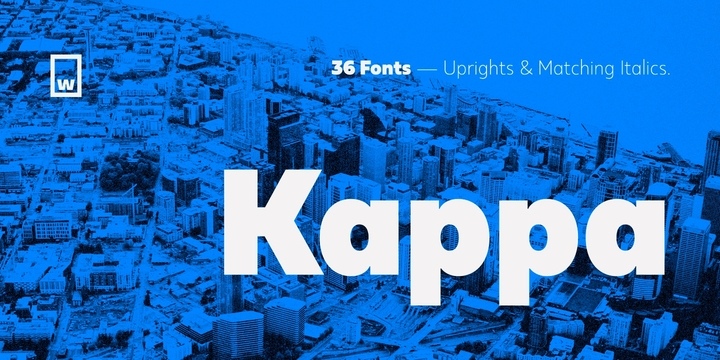
Kappa Font
Kappa Font is perfect for Greek cultural organizations, Mediterranean restaurant branding, classical education materials, university Greek studies programs, cultural heritage festivals, and Hellenic community centers. This distinguished typeface excels in Greek Orthodox church communications, classical philosophy publications, Mediterranean tourism promotions, and any application where Greek heritage and classical tradition create authentic cultural connections.
What makes Kappa Font so exciting is its exceptional ability to embody the timeless wisdom and cultural richness of Greek civilization through letterforms that honor the birthplace of democracy and philosophy. The font features classical proportions, Hellenic character influences, and dignified design elements that reflect the enduring legacy of Greek culture. Its authentic heritage makes it perfect for organizations celebrating genuine Greek traditions and classical learning.
Kappa Font comes in a classical family including Light, Regular, Medium, Bold, and Omega weights. Each style features complete uppercase and lowercase character sets, Greek symbols, classical numerals, and Hellenic punctuation marks. The font family also includes Greek alphabet alternates, philosophical ligatures, and heritage variations that allow designers to create authentic Greek cultural communications with classical dignity and professional respect.
The font's Hellenic character makes it particularly effective for Greek restaurants, cultural associations, Orthodox churches, and classical education institutions. Its noble readability ensures that Kappa Font communicates clearly while maintaining its distinctive Greek personality. The font's ability to evoke cultural pride and classical wisdom makes it an invaluable alpha for any project seeking to honor Greek heritage and connect with audiences through the timeless appeal of Hellenic culture, philosophical tradition, and the enduring contributions of Greek civilization to human knowledge.